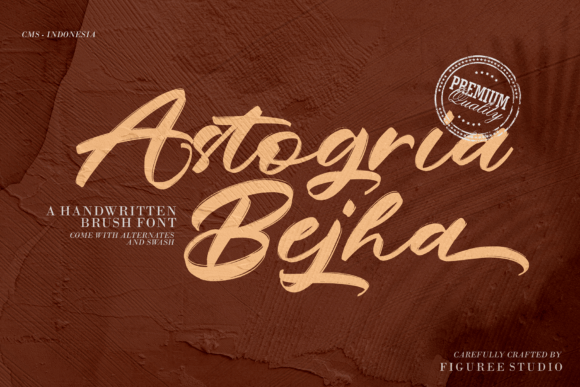
About Astogria Bejha Font
Astogria Bejha Font is a modern, hand-drawn brush typeface that mixes attractive curves with a fresh, urban vibe. Whether you’re designing a logo, crafting brand visuals, or creating eye-catching social media posts, this font brings a dynamic and stylish edge to every project.
Fresh Urban Style
Astogria Bejha has a unique look that feels both modern and authentic. Its hand-drawn brush strokes give your designs an organic feel, while the smooth curves add a touch of elegance.
This font was carefully designed to balance bold energy with readability. It’s versatile enough to look stunning on everything from small labels to large banners.
Perfect for Logos and Branding
Astogria Bejha Font is a go-to choice for designers who want to create brands that stand out. Its modern brush style helps you build a strong visual identity:
Logos: Make your logo memorable with a bold, hand-drawn touch.
Product Packaging: Give your products a fresh and dynamic look.
Labels & Tags: Add style and personality to every detail.
Branding Materials: Create a cohesive identity across all your marketing.
No matter the industry—fashion, food, creative services—Astogria Bejha adapts perfectly to your brand’s voice.
Ideal for Social Media and Quotes
This font works beautifully in digital spaces. Use it to create scroll-stopping posts on Instagram, Pinterest, and Facebook. Its striking appearance makes quotes, announcements, and promotions stand out in busy feeds.
Pair it with colorful backgrounds or minimal layouts to highlight the brush texture. Whether you’re sharing an inspiring message or promoting a sale, Astogria Bejha ensures your words get noticed.
Great for Merchandise and Creative Projects
Astogria Bejha is also an excellent choice for:
T-shirts and Apparel: Add a modern edge to your merchandise.
Mugs and Gifts: Make every product feel unique and hand-crafted.
Posters and Signage: Command attention with bold lettering.
Event Materials: From flyers to banners, this font brings energy to any occasion.
Its bold strokes and smooth flow make it perfect for both casual and professional projects.
Make Your Designs Stand Out
Astogria Bejha is more than just a typeface—it’s a creative tool that helps you tell your story. Its modern brush style adds personality and flair to every design. If you want your work to feel fresh, authentic, and memorable, Astogria Bejha is the perfect font to make it happen.